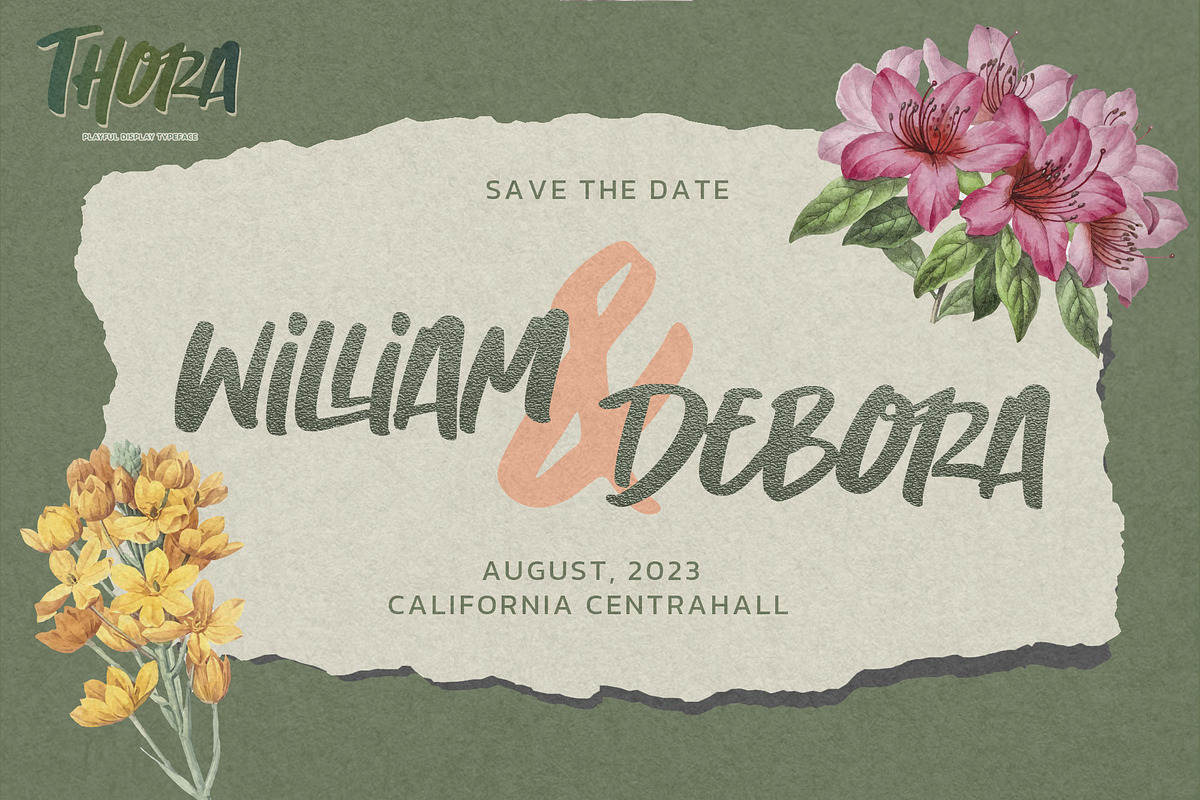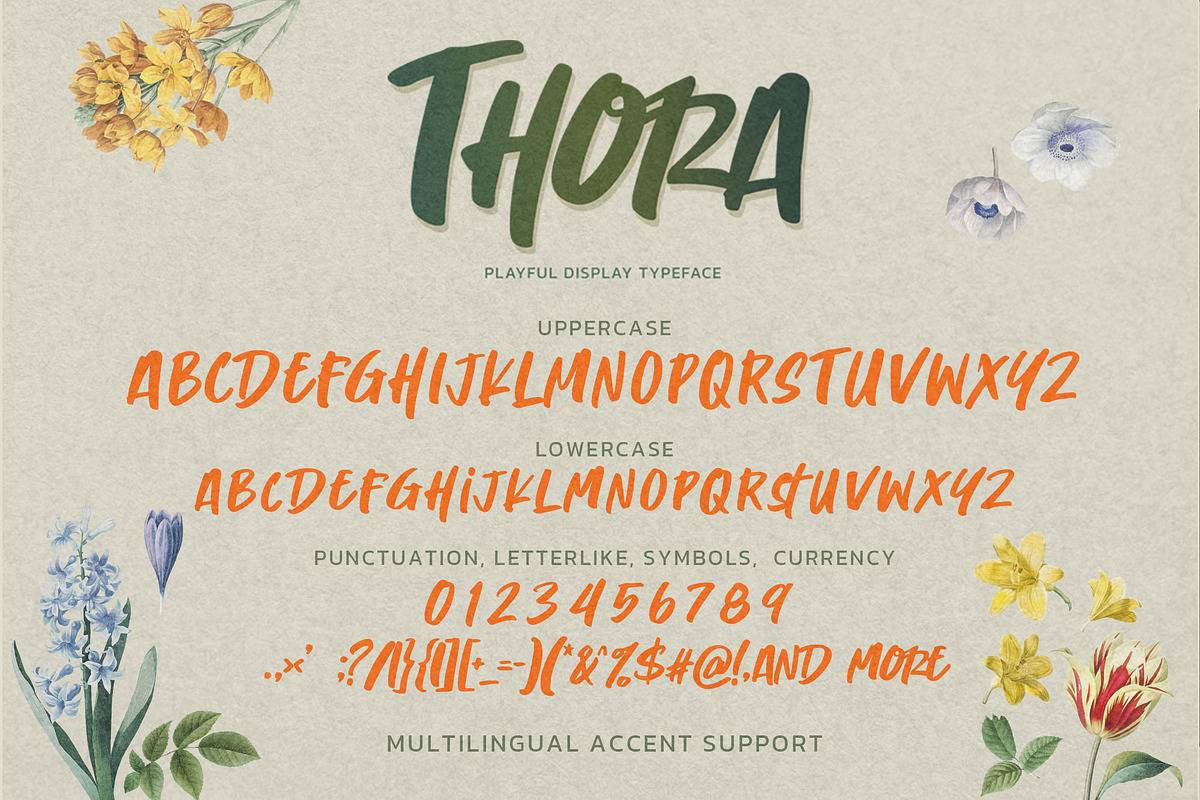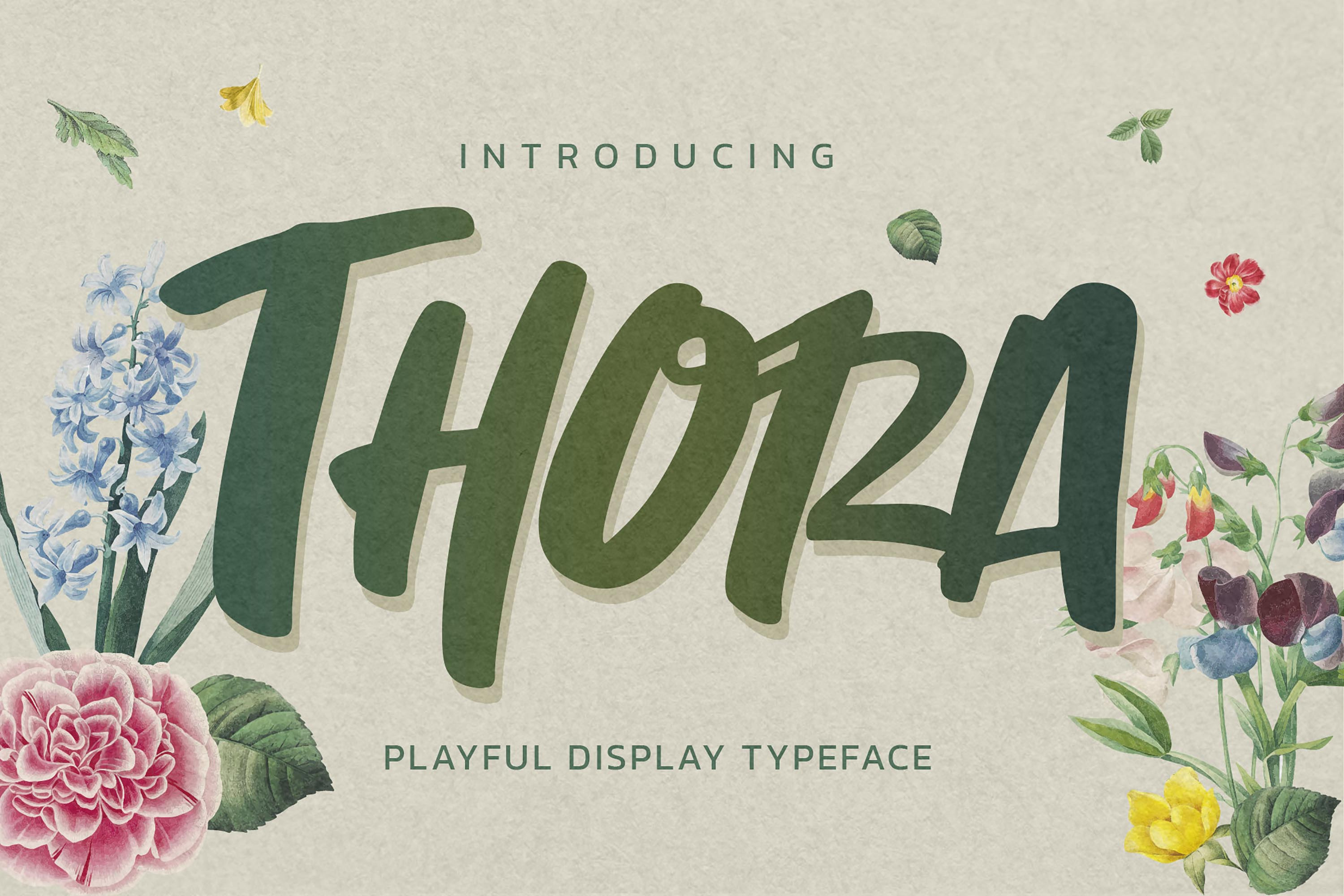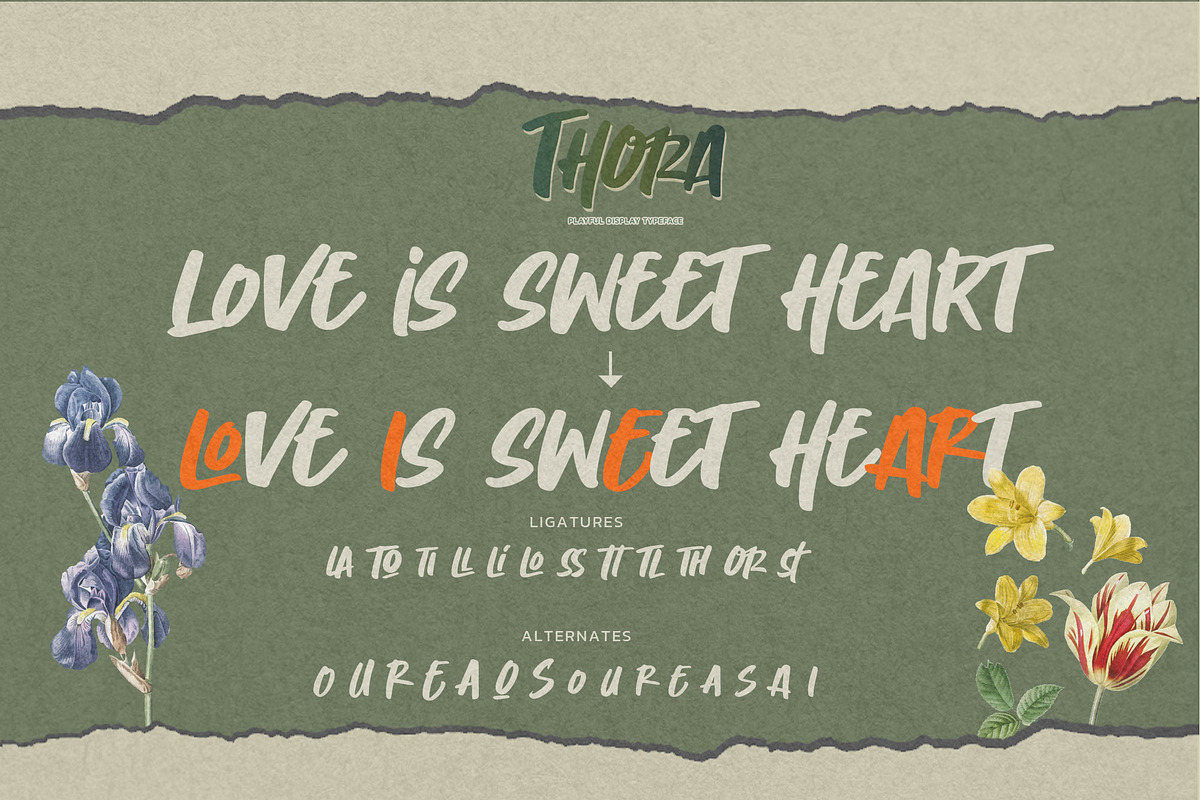
Thora – Playful Display Typeface
THORA is a lively and expressive display typeface inspired by natural flow, soft curves, and organic hand-drawn strokes. Designed to bring a warm, joyful, and whimsical feeling, THORA adds a refreshing touch to any layout with its friendly character and artistic charm.
With its smooth brush details and lighthearted personality, THORA fits beautifully in designs that embrace creativity, elegance, and a touch of nature. Perfect for projects that need a welcoming and visually delightful presence.
Great For
• greeting cards & invitations • botanical and floral branding • packaging & product labels • social media posts • creative posters & prints • lifestyle blogs & decorative titles • playful editorial layouts
Style & Feel
soft • playful • organic • natural • elegant • artistic